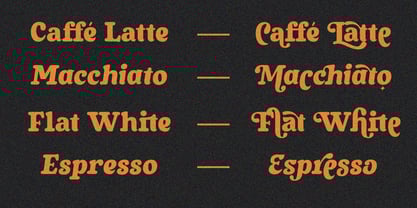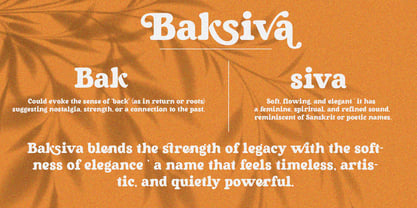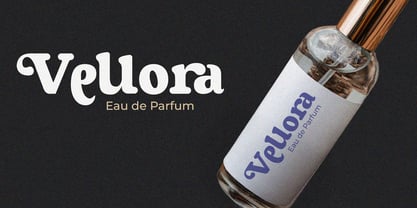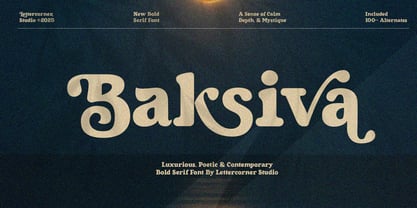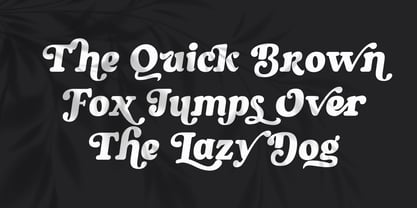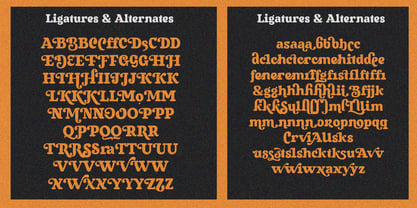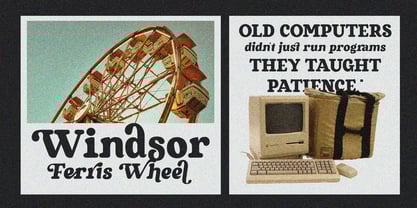
Baksiva
by Mevstory Studio
The Baksiva Font Family was designed by Muhammad Afif Ersya and published by Mevstory Studio. Baksiva contains 2 styles and family package options.
Baksiva Display is a decorative serif font family with a bold personality and elegant charm. Designed with plenty of alternates and ligatures available through OpenType features, Baksiva gives you endless creative possibilities for your typography.
The name Baksiva is inspired by a blend of imagination and meaning—it symbolizes beauty, strength, and artistic expression, all of which are reflected in the unique style of this typeface.
Perfect for branding, logos, social media graphics, advertisements, product packaging, watermarks, invitations, stationery, t-shirts, prints, posters, and more, Baksiva adds a sophisticated and stylish touch to any design project.
Designers: Muhammad Afif Ersya
Publisher: Mevstory Studio
Foundry: Mevstory Studio
Design Owner: Mevstory Studio